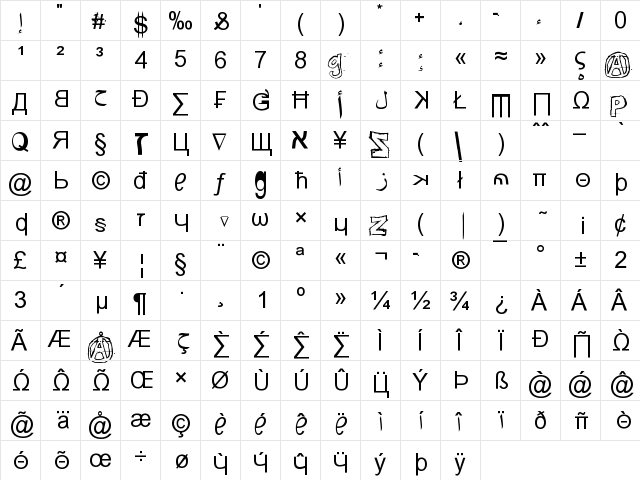
Weird Tucan-Noobs from Saint Se Regular
| Foundry | Duncan Wick |
| Designer | Duncan Wick |
Design Context for Weird Tucan-Noobs from Saint Se Typeface
Weird Tucan-Noobs from Saint Se offers clean, dependable letterforms without strong stylistic allegiance, making it a practical choice for designers who need flexibility.